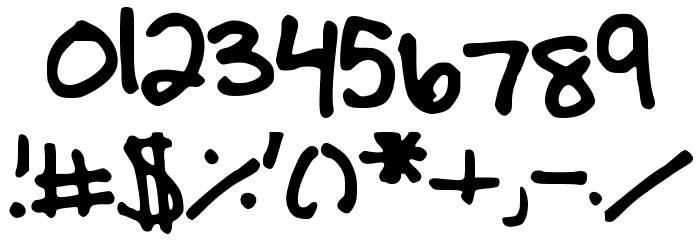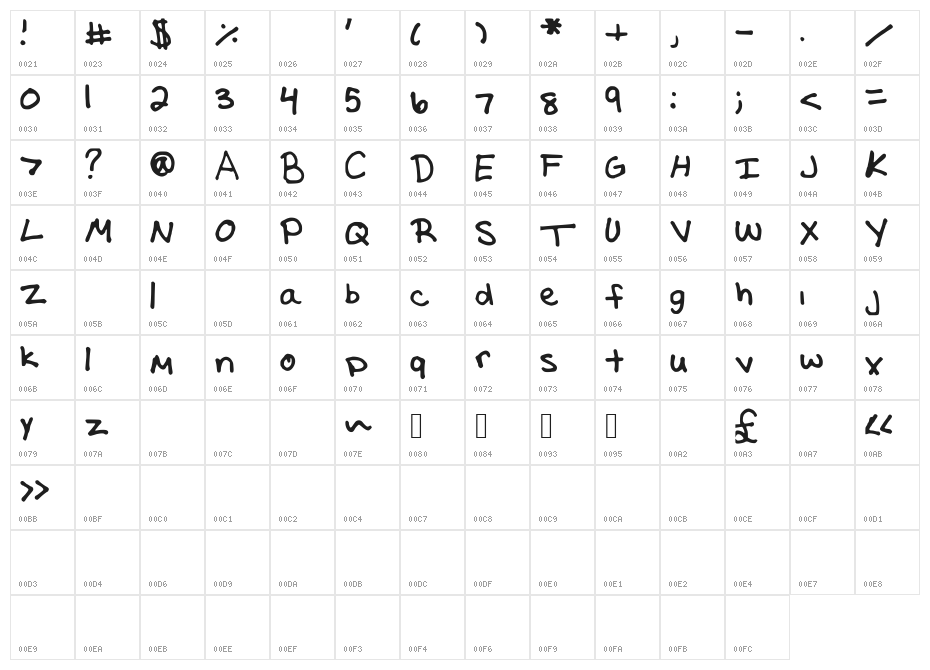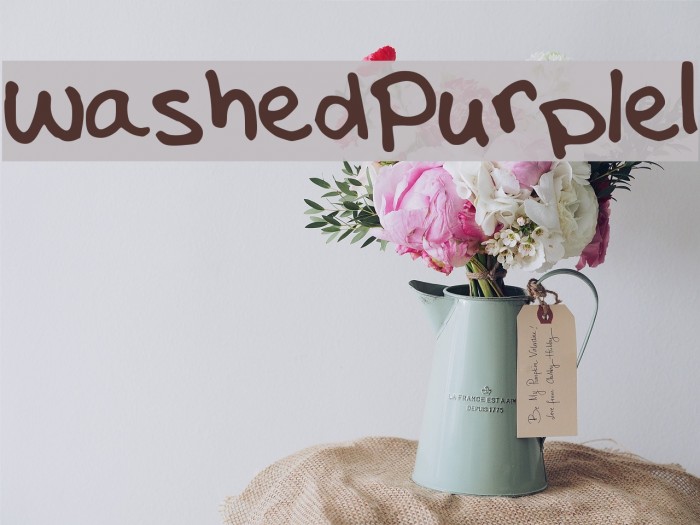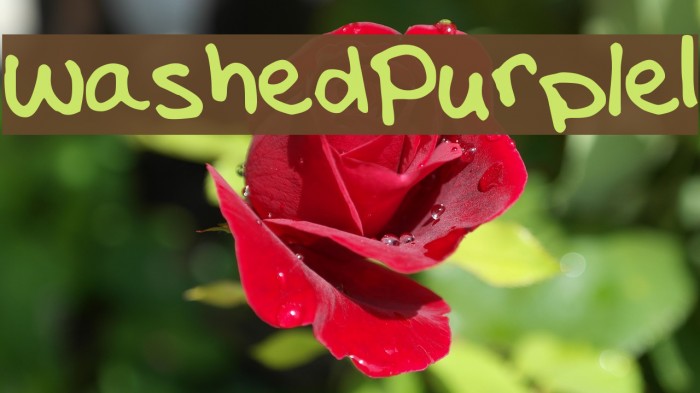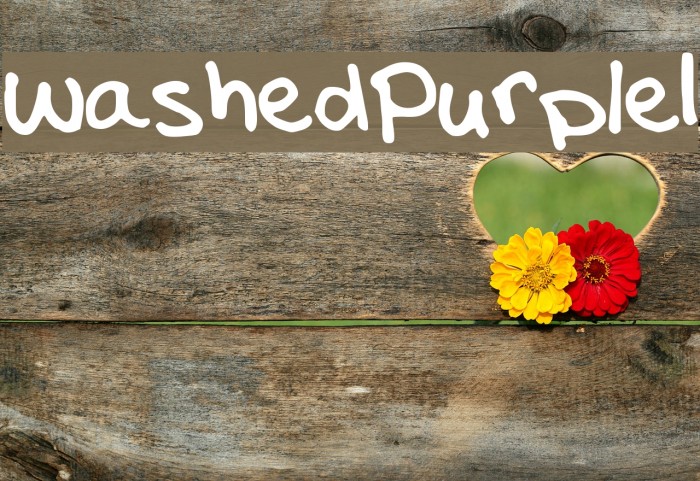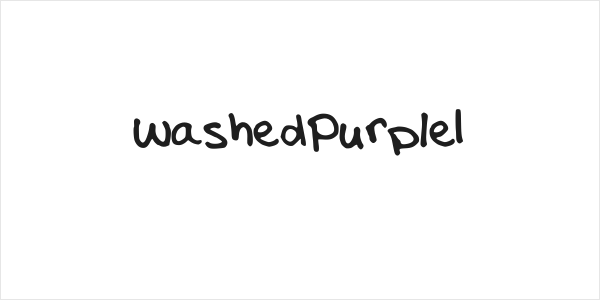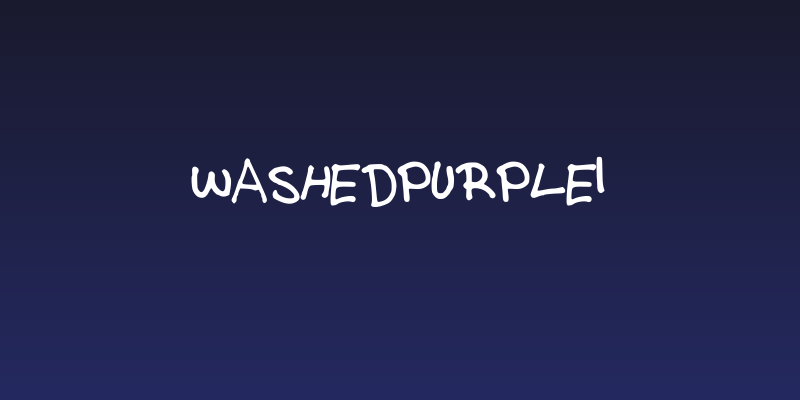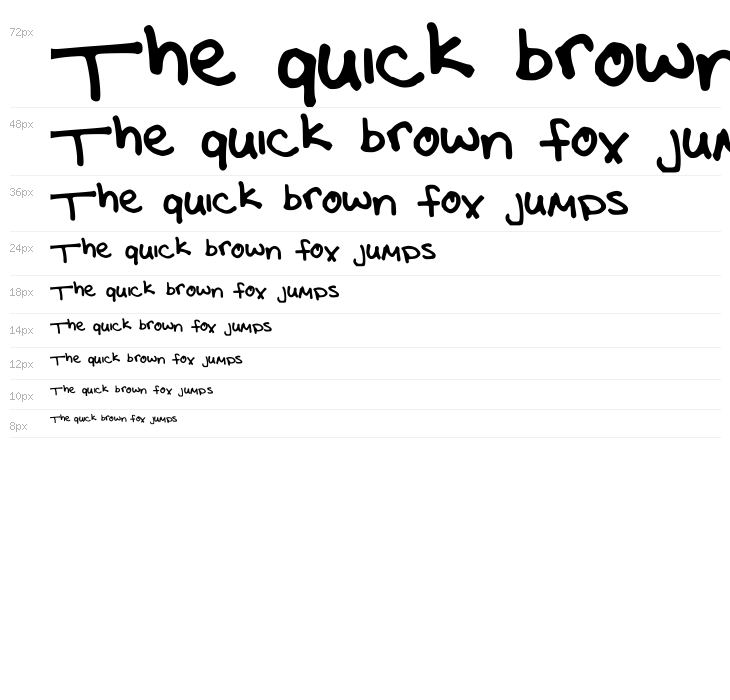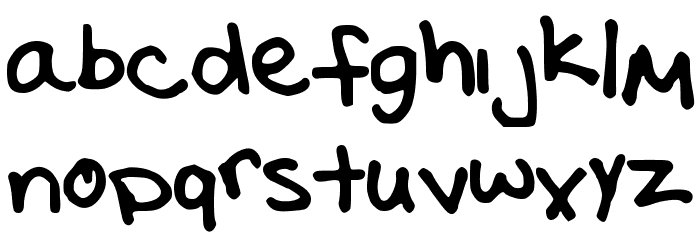
WashedPurple1 Font
WashedPurple1 Description
This font has a playful and casual handwritten style, characterized by its irregular and slightly uneven strokes. The letters are bold and have a natural, flowing appearance, reminiscent of a marker or brush pen. The uppercase and lowercase letters maintain a consistent style, with rounded edges and a slightly tilted orientation, giving it a dynamic and informal look. The numbers and special characters follow the same aesthetic, ensuring a cohesive appearance across all glyphs. This font exudes a friendly and approachable vibe, making it suitable for projects that require a personal touch.
| Proposed Projects | Ideal for greeting cards, children's books, casual branding, and social media graphics. |